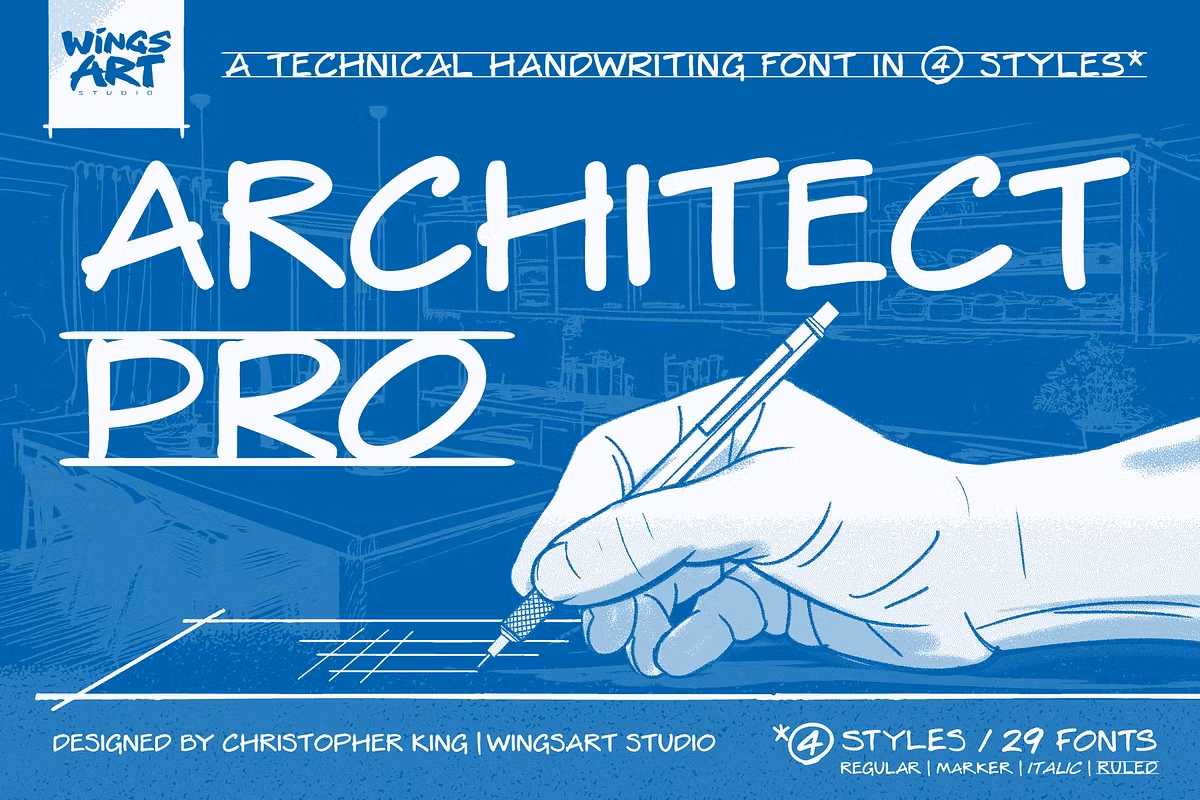
Architect Pro - Handwriting Font Free Download
Architect Pro – Handwriting Font Free Download is a clean and precise handwritten typeface inspired by the lettering styles used in architectural sketches and technical drawings. Please note, you are required to purchase this font for commercial use. It is available for free download for testing and personal projects only.
With its neat lines, consistent spacing, and professional look, Architect Pro is perfect for blueprint-style designs, logos, instructional graphics, product labels, and minimalist branding. It gives your projects a structured yet personal touch—ideal for creative professionals and modern design enthusiasts.